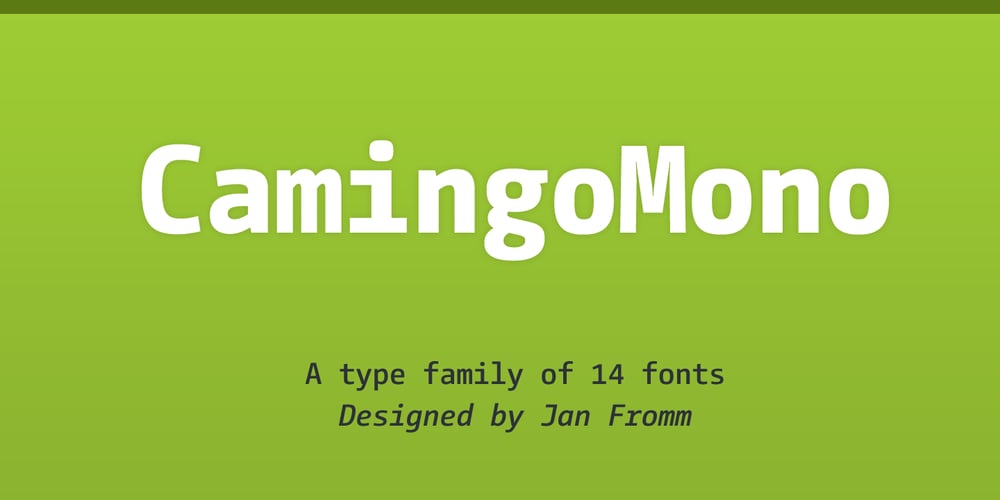
CamingoMono Font Family was designed by Jan Fromm and published by Jan Fromm. CamingoMono contains 14 styles and family package options. CamingoMono is a modern monospaced typeface family of seven weights with matching italics, from ExtraLight to Black. Predominantly humanist in character, the typeface also has a technical feel thanks to the fixed proportions, while its semi-condensed width means CamingoMono is a great space saver in long passages of text. The default figures are noticeably lower than the uppercase letters, making them clearly distinguishable from one another. The typeface’s additional features include three different figure sets, slashed zeros and currency symbols, arrows and a handful of stylistic alternates. It is ideal for any technically-flavored text where an individual touch is desired, from advertising to corporate design. With CamingoMono, private and commercial correspondence alike will look neat and credible.